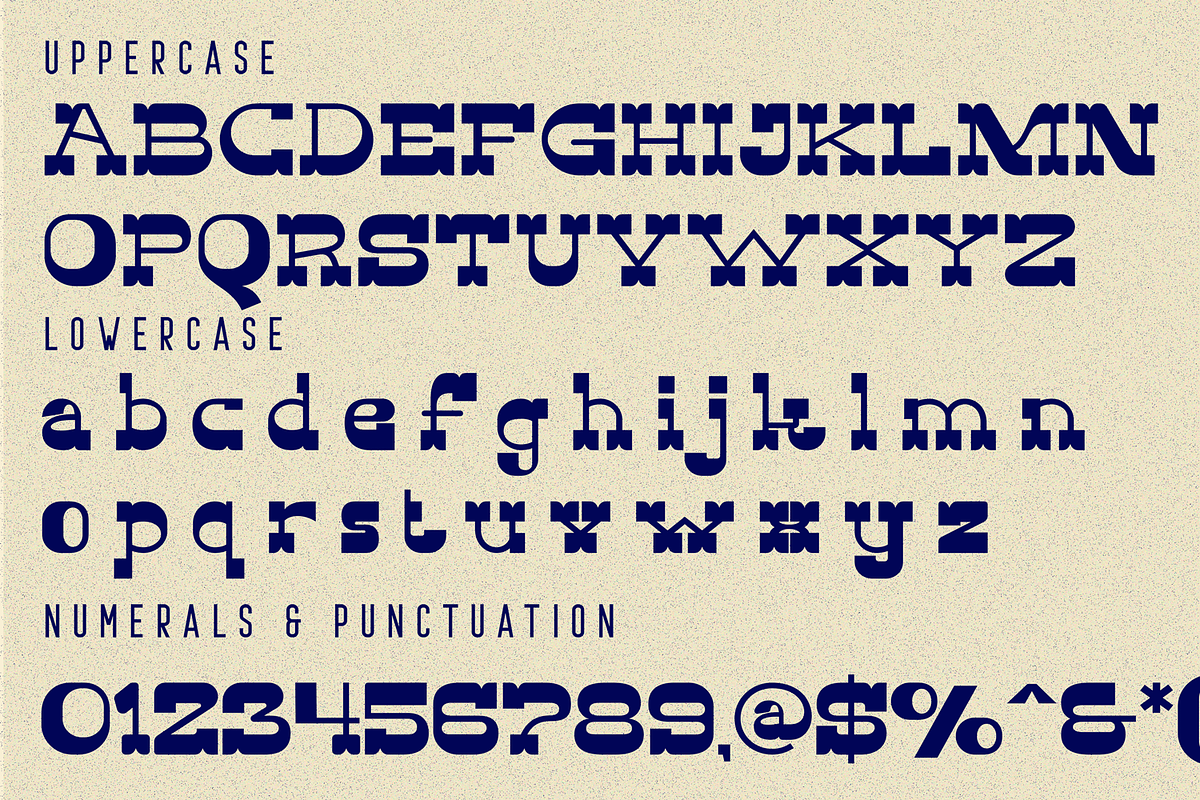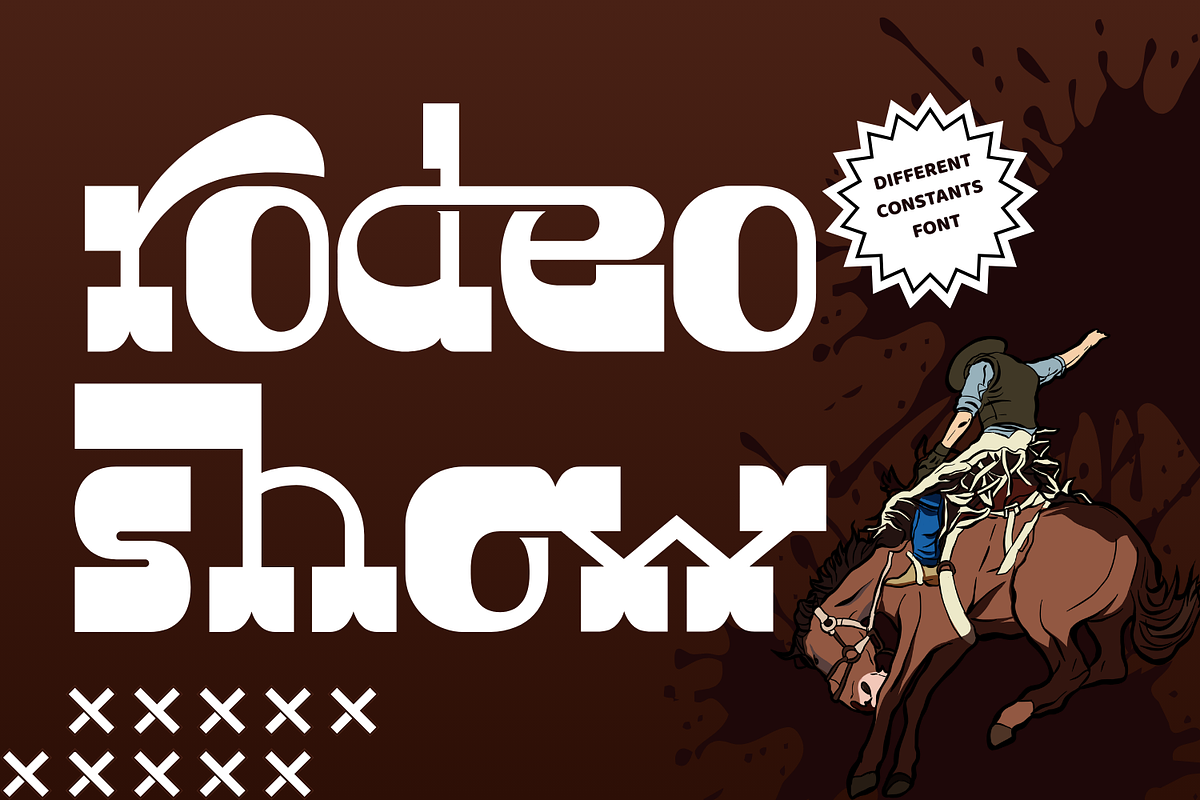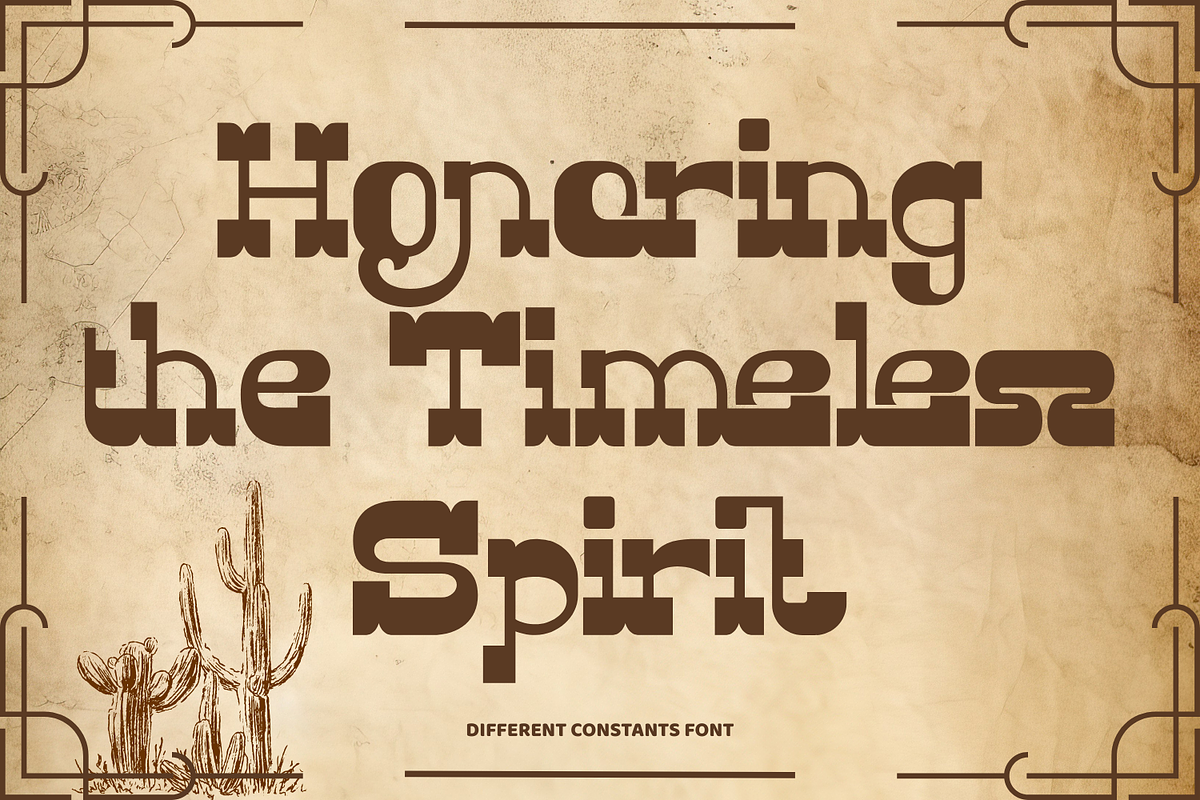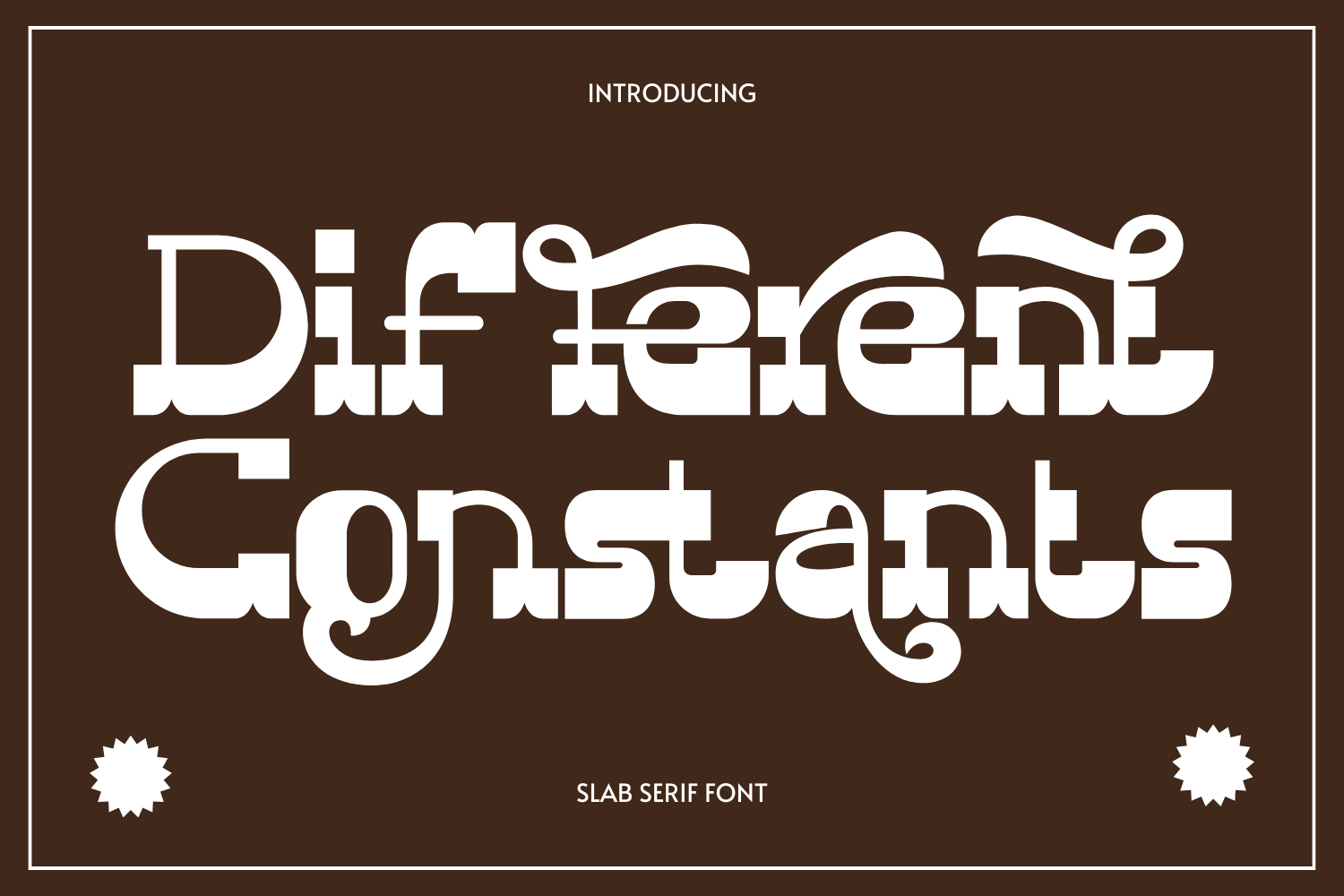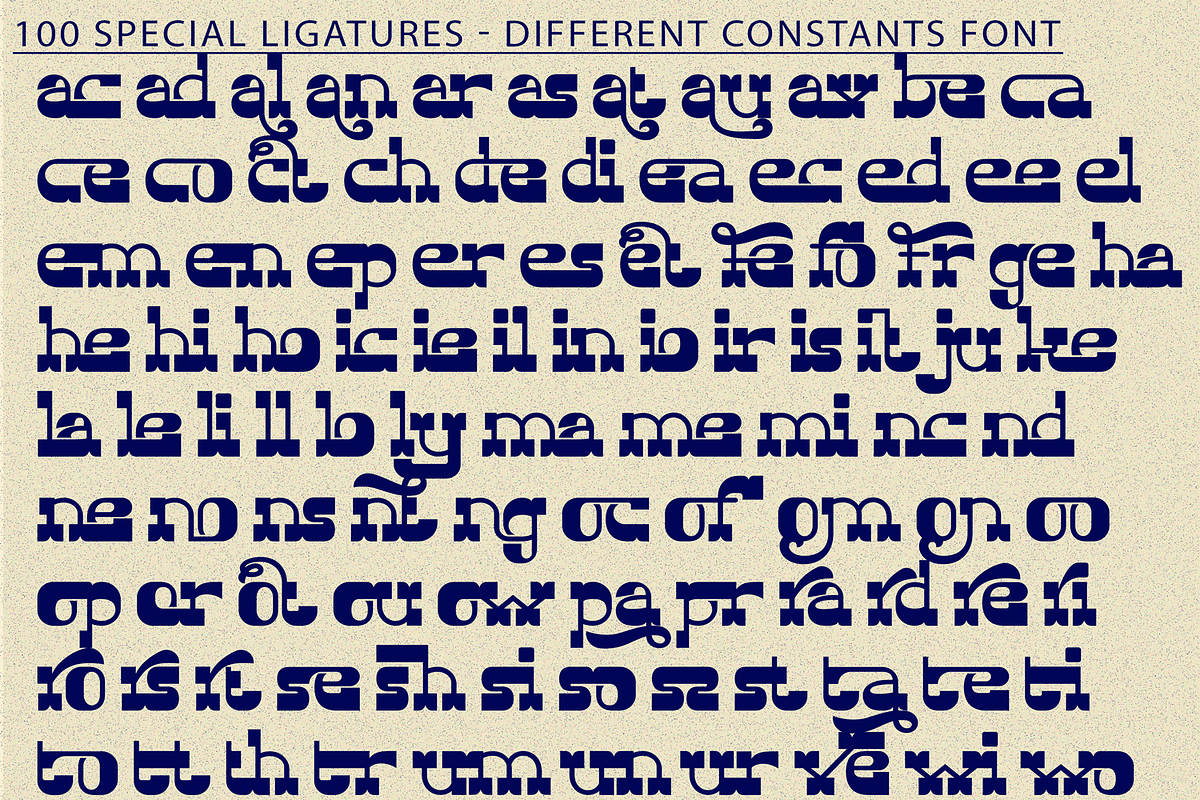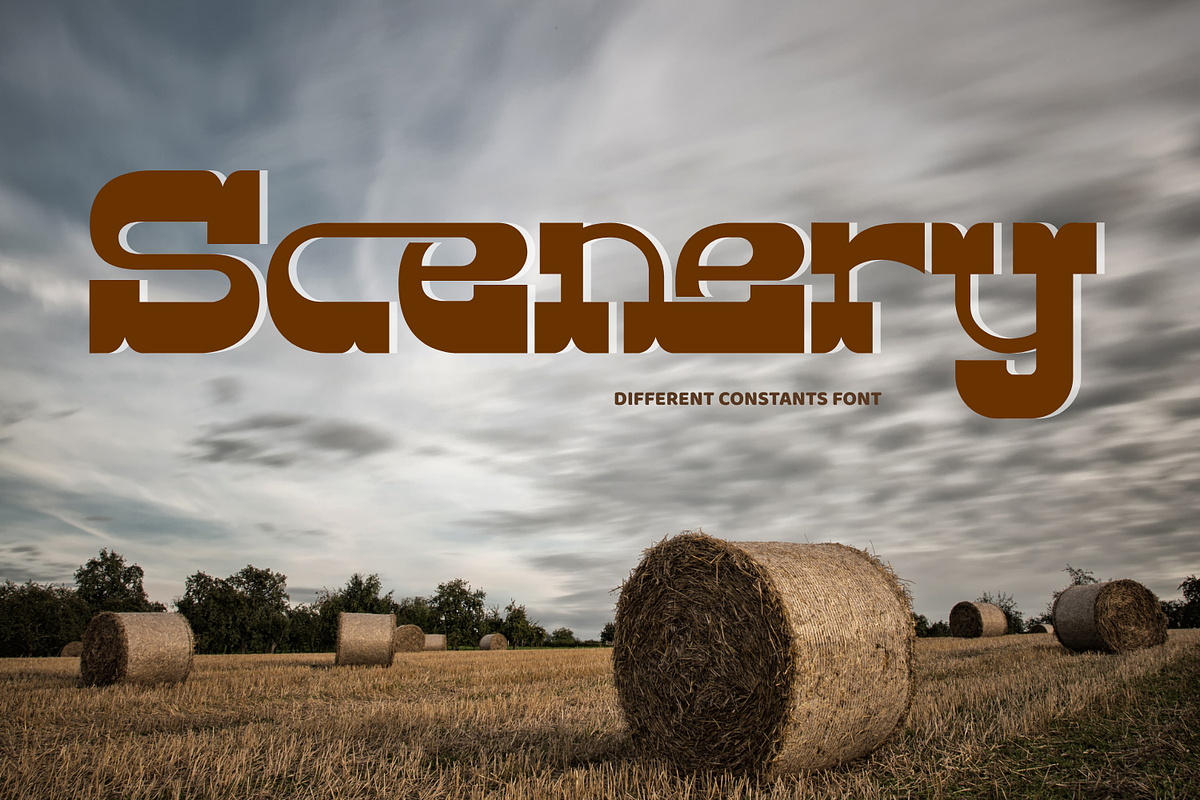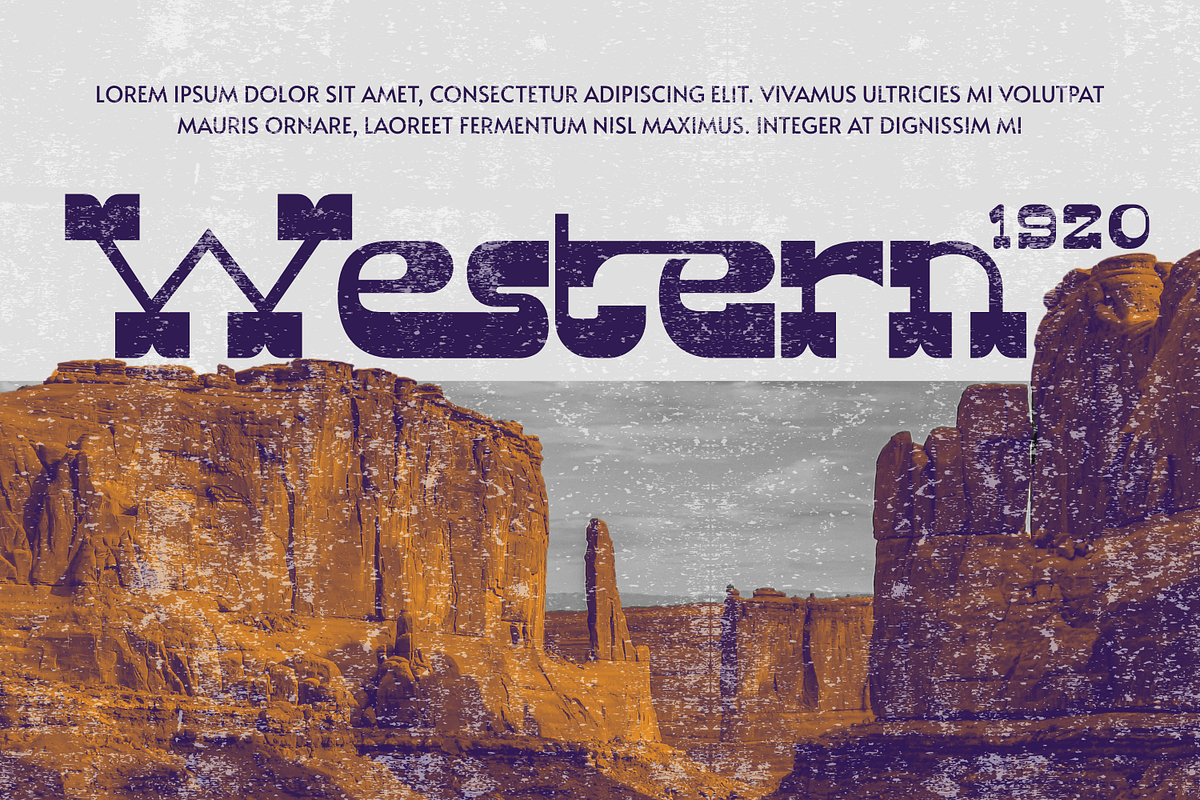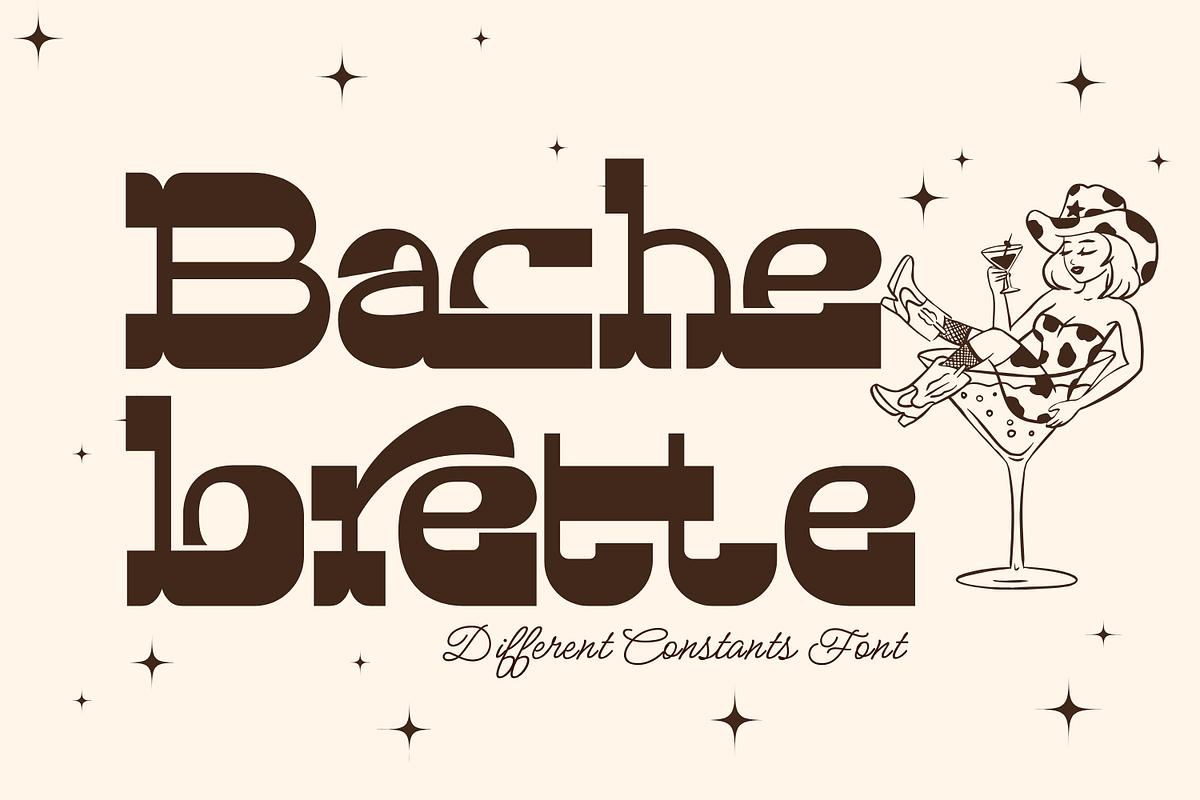
Different Constants - Retro Font
Different Constants - Retro Font is a decorative retro serif display typeface that blends classic serif structure with expressive ornamental swashes. Designed with confident horizontal strokes and elegant curved terminals, this font brings a nostalgic yet refined character to any design. The balanced proportions and distinctive extended swashes create a strong visual rhythm, making Different Constants perfect for editorial headlines, boutique branding, vintage-inspired packaging, posters, and statement logos. Its solid serif foundation ensures readability while the decorative details add personality and charm.
🔤Features:
- Uppercase & Lowercase Letters
- Around 100 Special Ligatures & Alternates
- Accented Characters for multilingual support
🔤About 100 ligatures combined with Stylistic Alternates Font:
ac ad al an ar as at au av be ca ce ch co ct de di ea ec ed ee el em en ep er es et fe fo fr ge ha he hi ho ie ic il in io ir is it ju ke la le li ll lo ly ma me mi nc nd ne ng no nt ns oc of om on oo op or ot ou ow pa pr ra rd re ri ro rs rt se sh si so ss st ta te th ti to tr tt um un ur ve wi wo